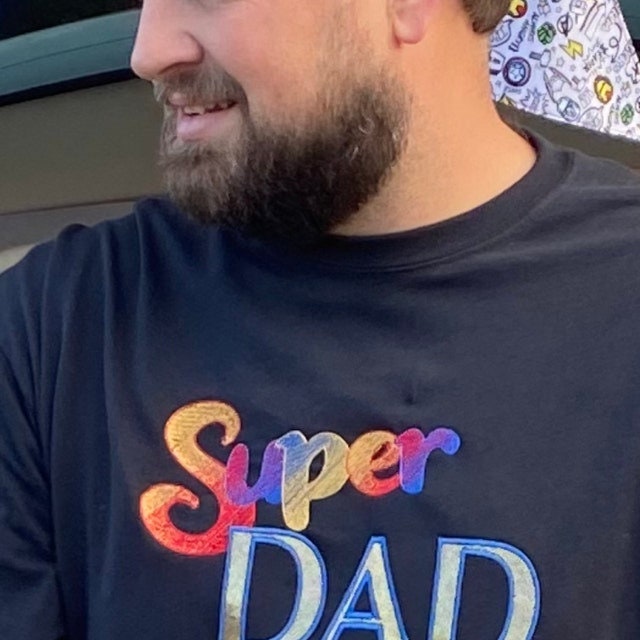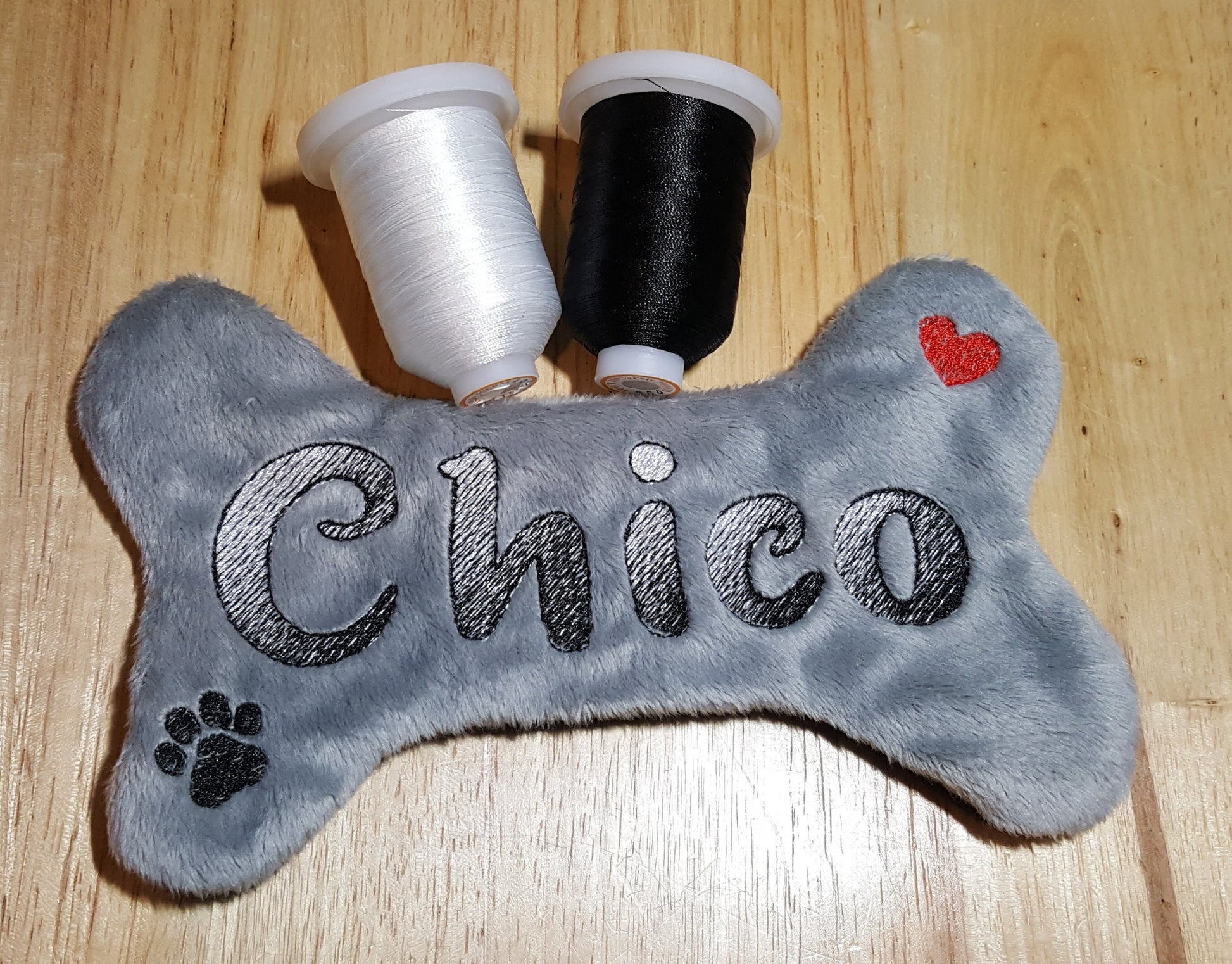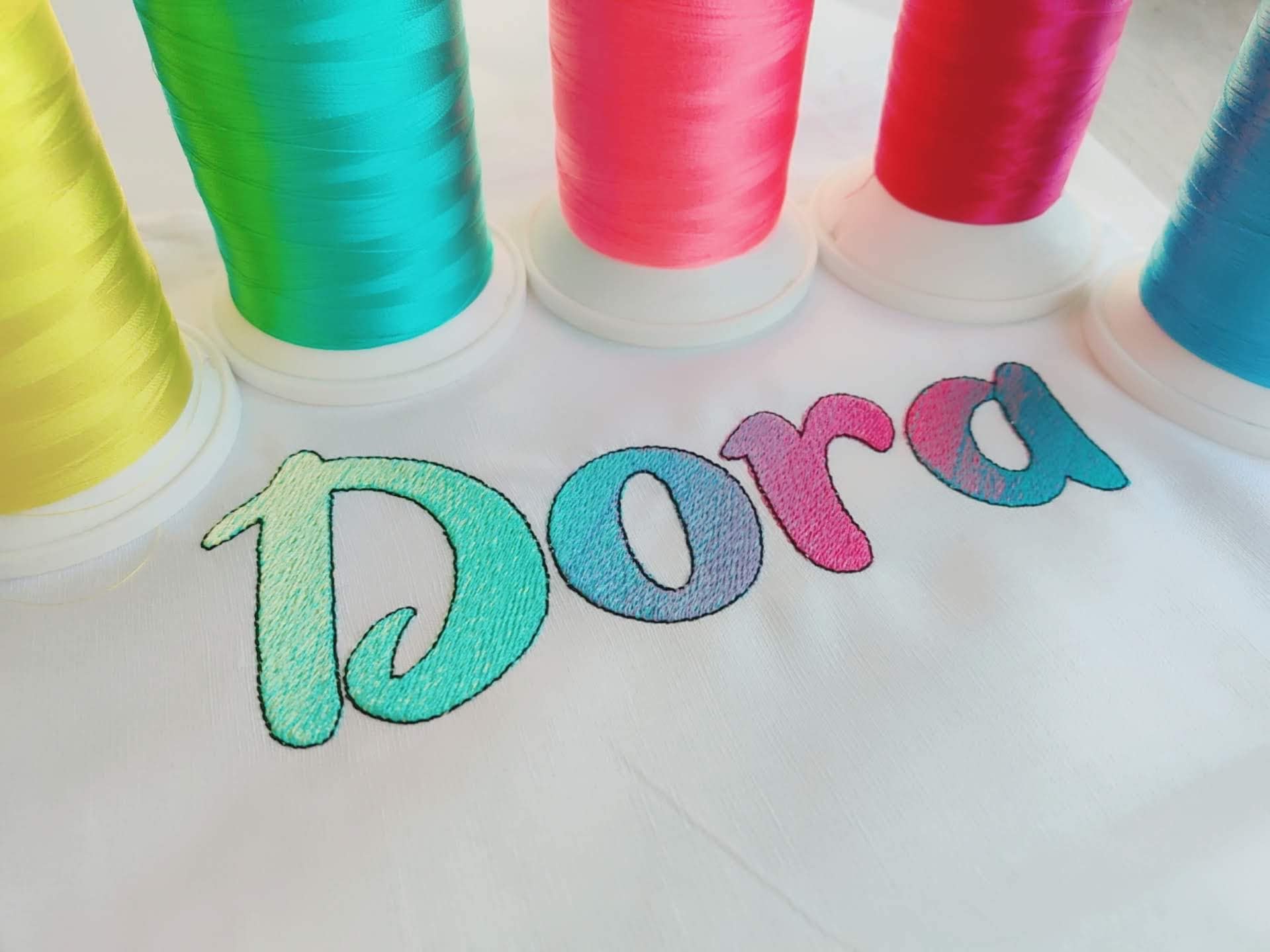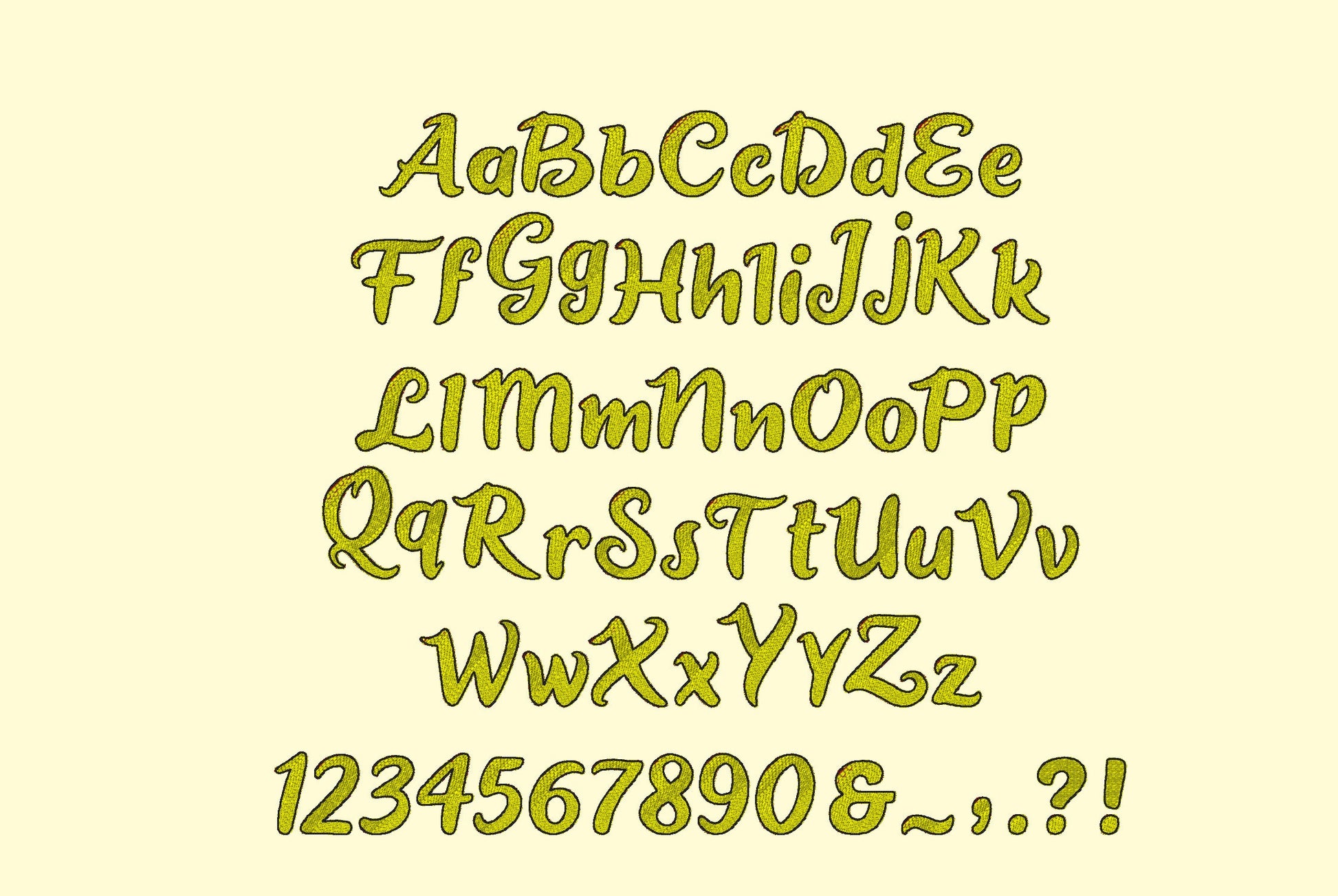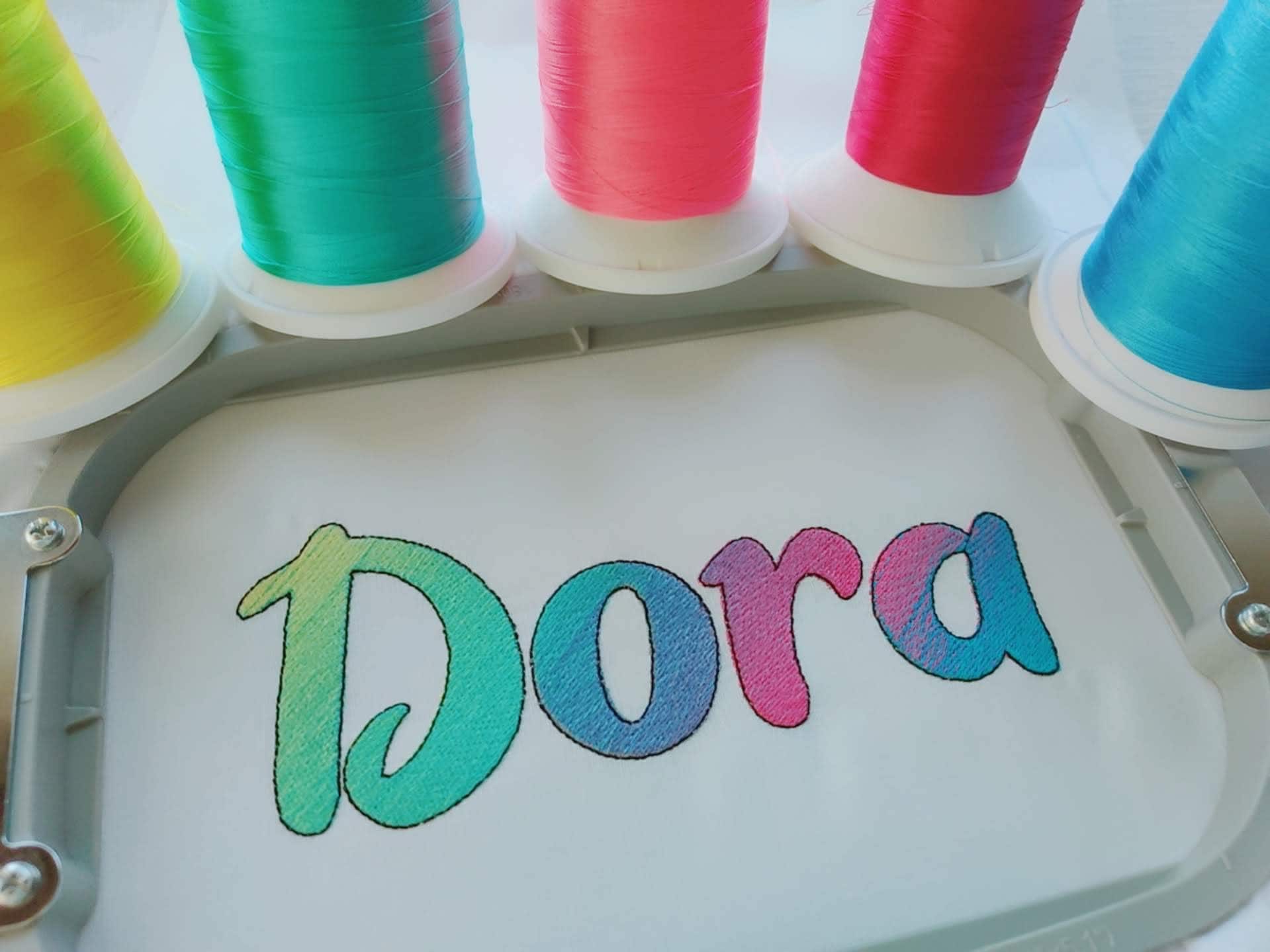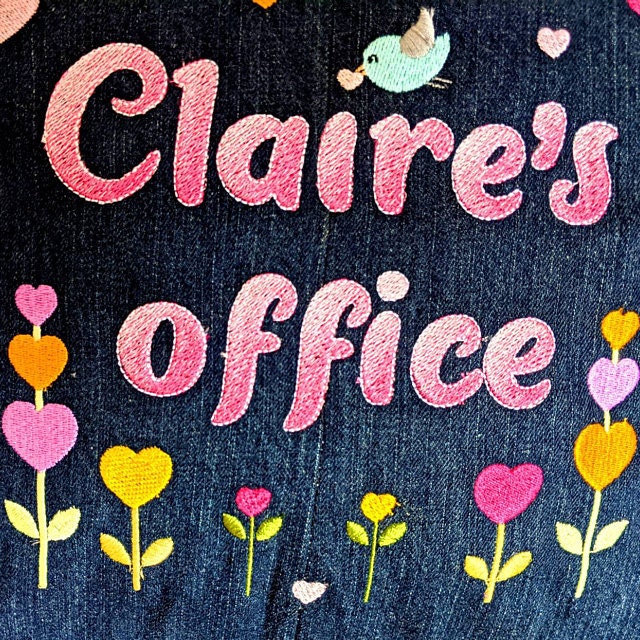
Iridescent Ombre Font Dora
Beautiful satin stitch Cute Font, playful kids alphabet, letters, monogram for names, machine embroidery design
Whole alphabet, uppercase and lowercase letters, and punctuation (. , &) included